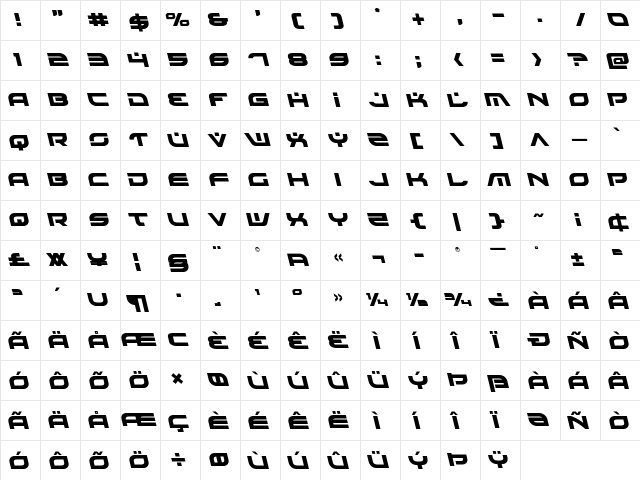
Battlefield Leftalic Italic
Design Context for Battlefield Leftalic Typeface
Battlefield Leftalic is a composed and adaptable typeface that performs quietly and consistently across a wide range of design contexts. The slanted form adds forward momentum and visual energy.
Pro Tip: Use Battlefield Leftalic for emphasis, pull quotes, and subheadings where its slanted energy can add rhythm to the layout.